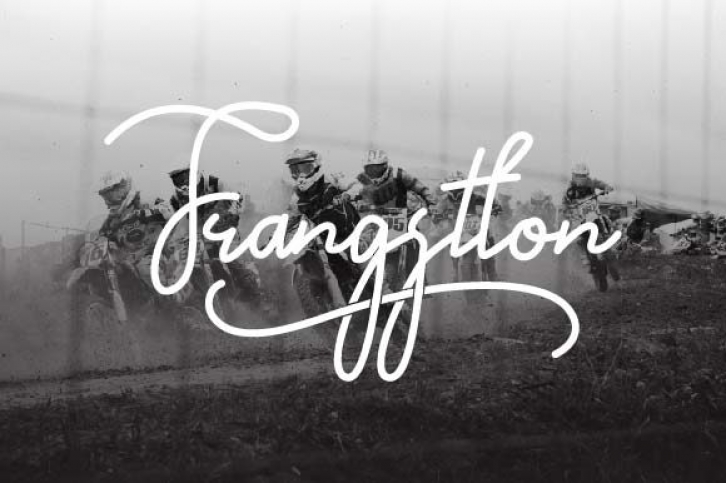
Frangstton is a delicate and simple lettered handwritten font. It looks stunning on wedding invitations, thank you cards, quotes, greeting cards, logos, business cards and every other design which needs a handwritten touch.